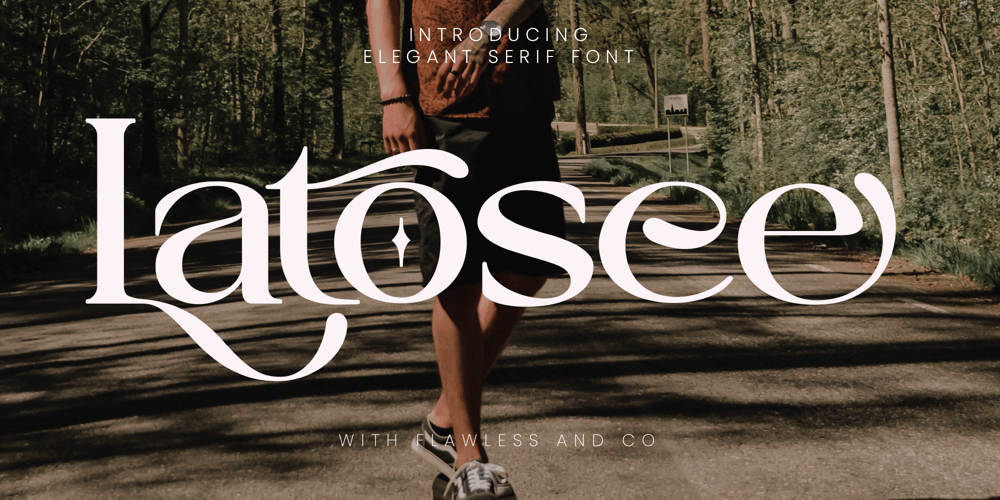
Latosce Font Family was designed by Achmad Yani and published by Flawlessandco. Latosce contains 1 styles and family package options. Introducing “Latosce” – An Elegant Serif Font. Embark on a journey of timeless elegance with “Latosce,” a refined serif font that seamlessly blends classic charm with a contemporary touch.There’s some connected letters and some alternates that suitable for any graphic designs such as branding materials, t-shirt, print, business cards, logo, poster, t-shirt, photography, quotes .etcThis font support for some multilingual. Also contains uppercase A-Z and lowercase a-z, alternate character, numbers 0-9, and some punctuation.If you need help, just write me! Thanks so much for checking out my shop!